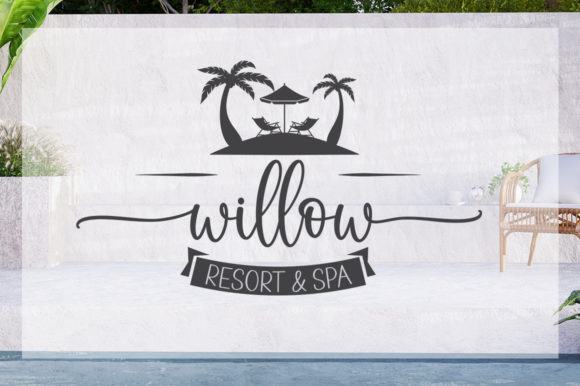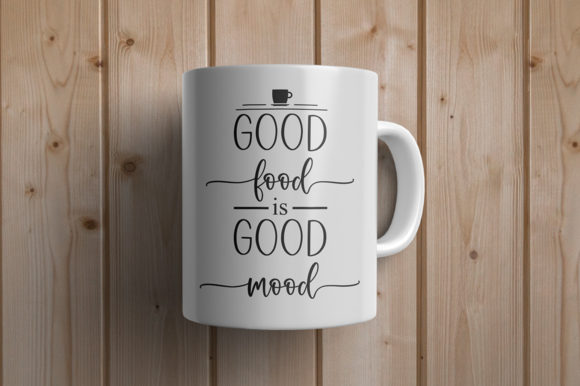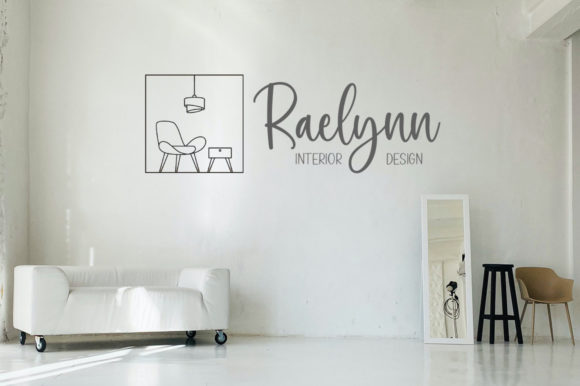
About Country Kitchen Font
Country Kitchen consists of two fonts designed to complement each other perfectly. Together or apart, these fonts are ideal for adding a chic and cheery touch to your crafts. This font is PUA encoded which means you can access all glyphs and swashes with ease!